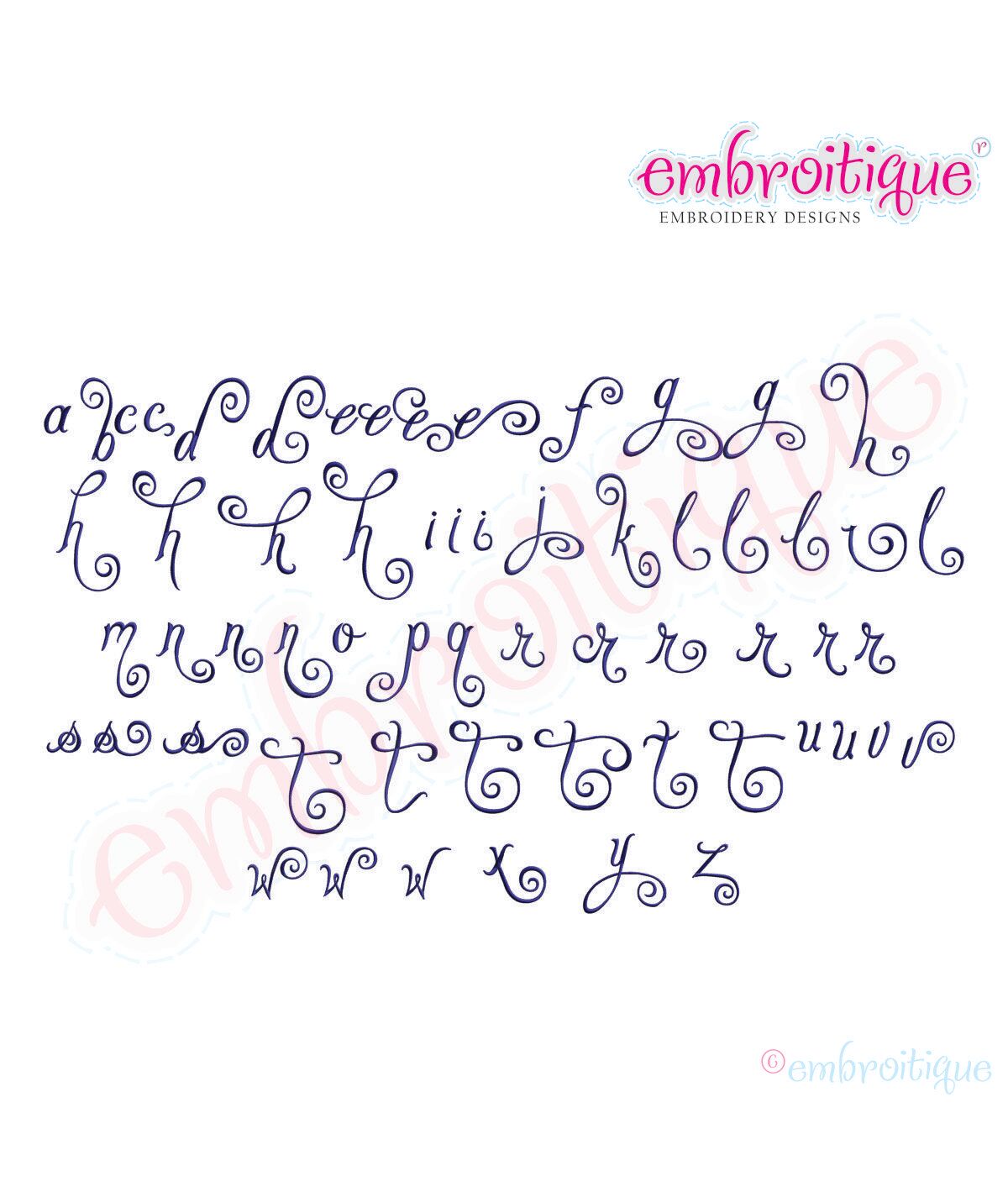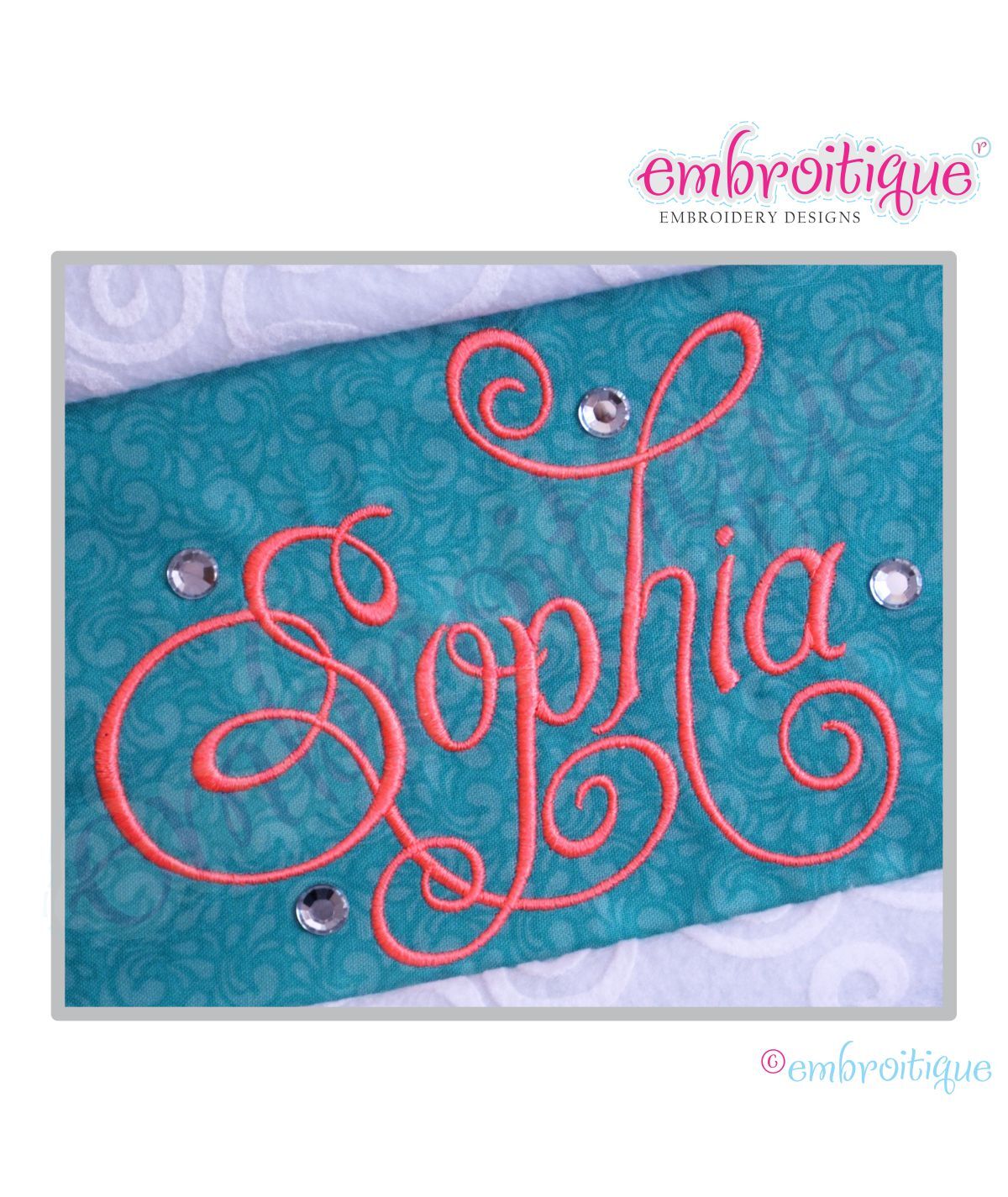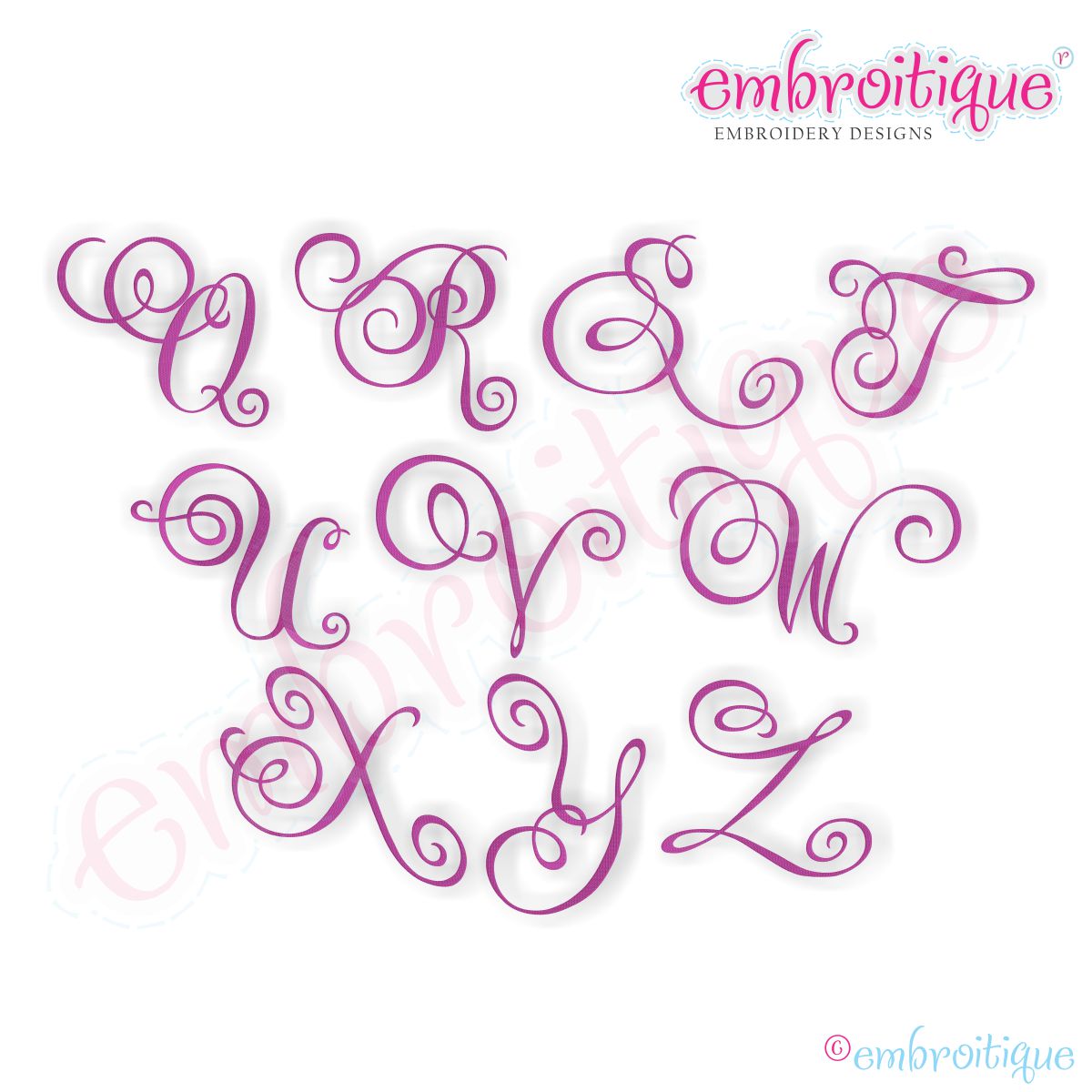
Charming Calligraphy Script Monogram Set - Small - Full Set 1", 1.5", 2", 2.5"
This beautiful calligraphy monogram set is an Embroitique exclusive set! Check out all of our Calligraphy Script Designs!